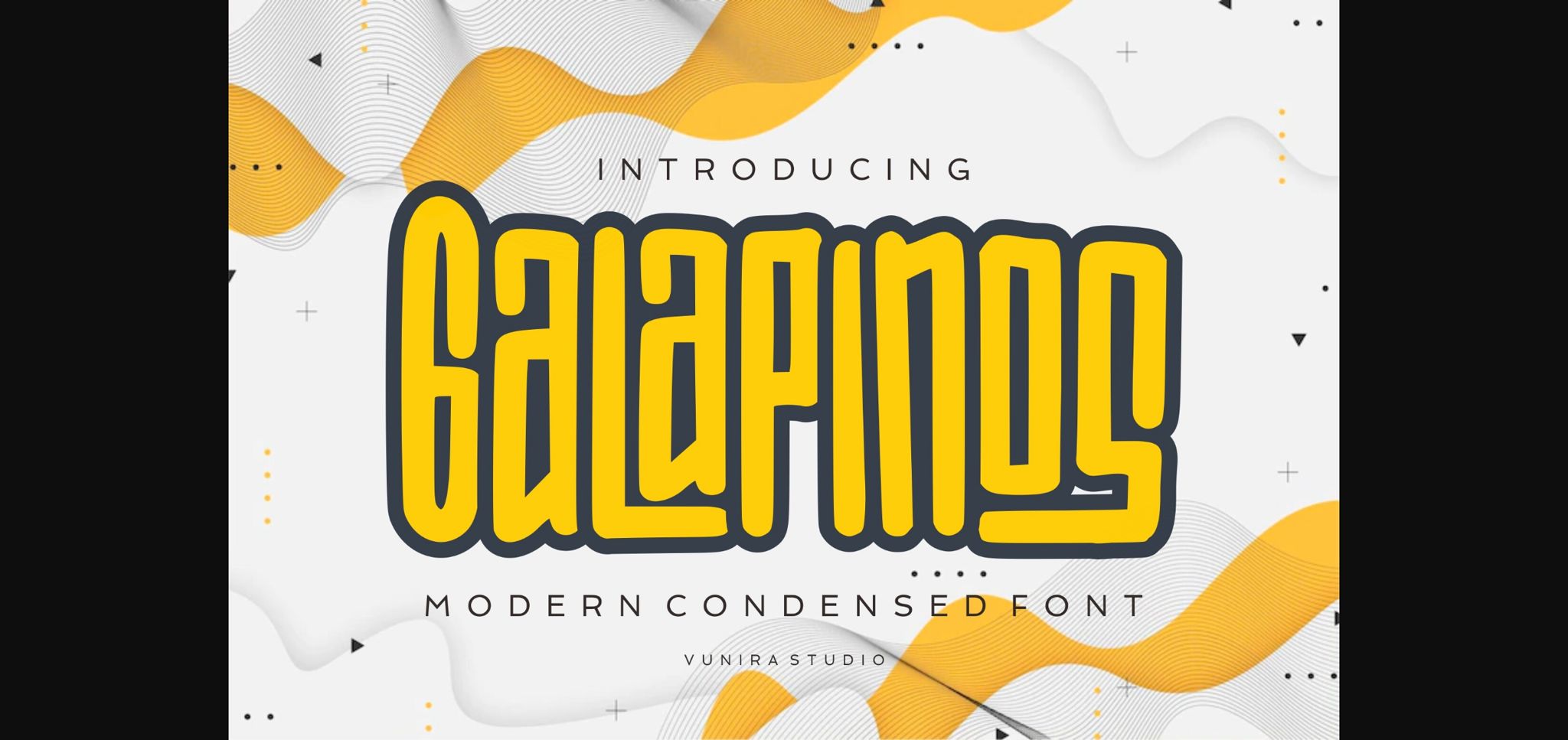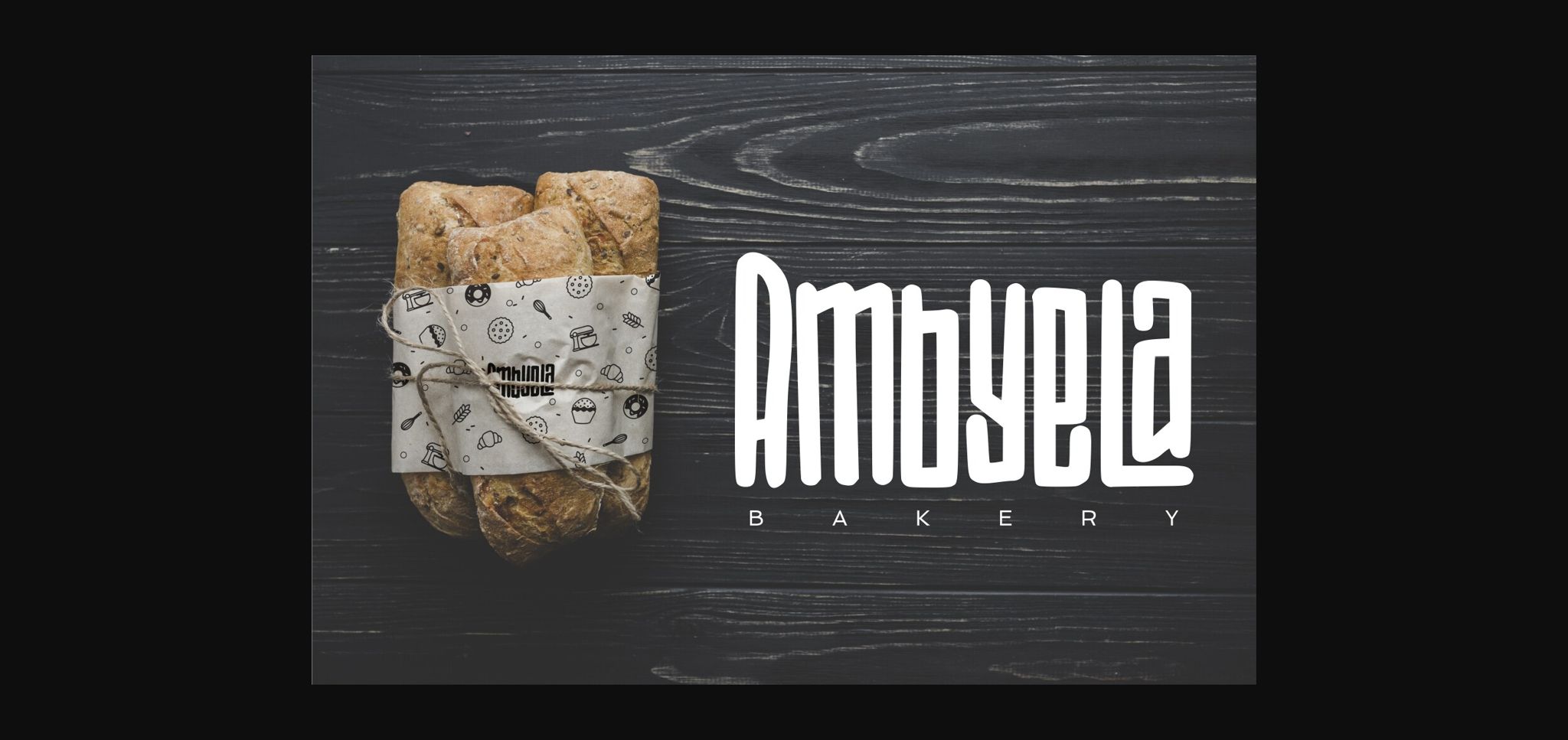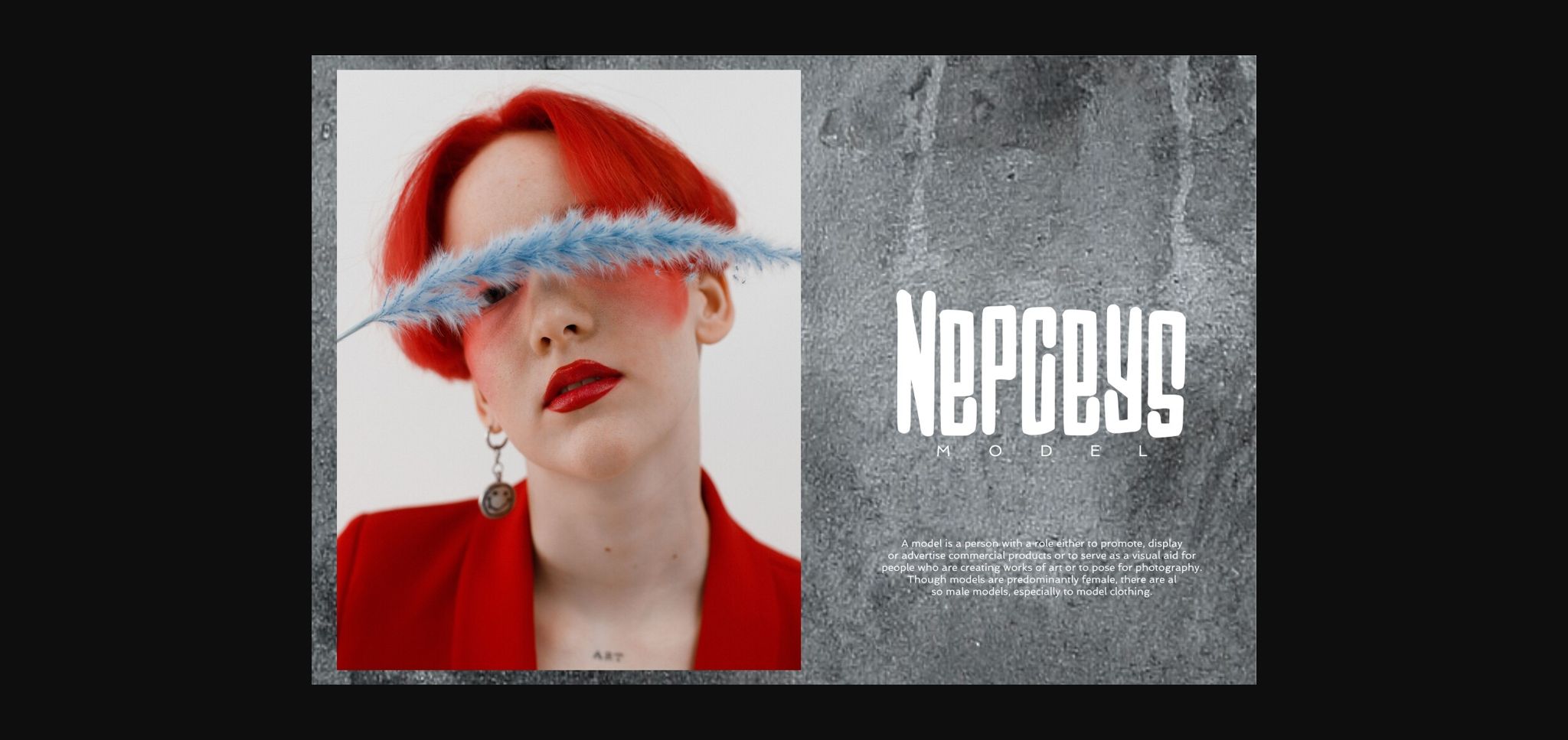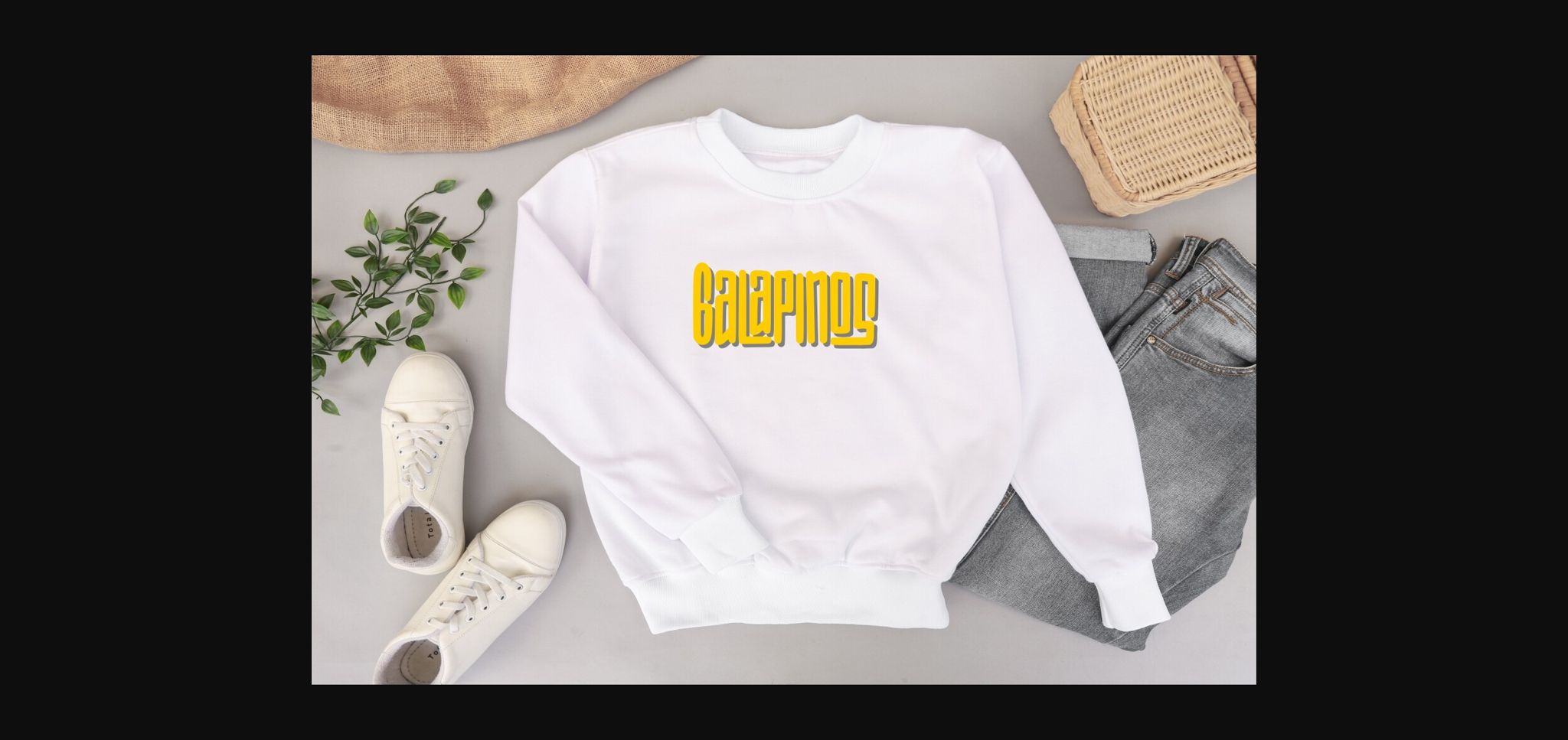
About Galapinos Font
Galapinos – Modern Condensed is a sleek and contemporary font that’s all about clean lines and a space-saving design. With a modern touch, this font is perfect for projects where you want a stylish and streamlined appearance. Whether it’s headlines, logos, or any text needing a modern edge, Galapinos delivers a crisp and sophisticated look. Upgrade your design with the simplicity and efficiency of Galapinos – Modern Condensed for a fresh and polished aesthetic.